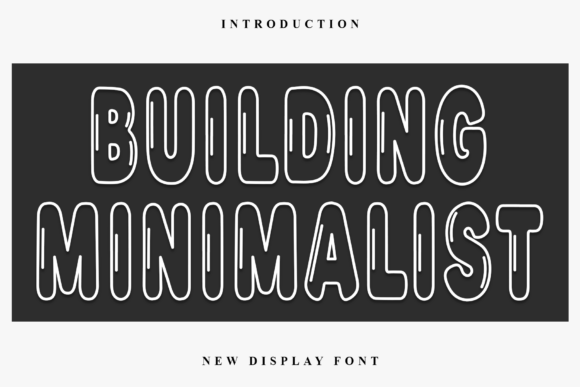
The Magic of Building Minimalist Font: A Festive Holiday Companion
Ah, the holiday season is upon us, and as designers, crafters, and creative hobbyists, we’re often on the lookout for that perfect font to bring our festive projects to life. I still remember the year I spent hours scouring font libraries for the ideal typeface for a client’s holiday card campaign. The brief was simple: find a font that was merry, bright, and whimsical, with a touch of nostalgia. And then, I stumbled upon Building Minimalist Font. ✨
As I dove into the world of Building Minimalist Font, I was excited to see if it lived up to its promises. Here’s my honest review:
• ✅ Festive and merry vibe that instantly captures the holiday spirit
• ✨ Whimsical flair and decorative elements that add a touch of enchantment to designs
• 🔍 PUA encoded for easy access to amazing glyphs and ligatures
• 🎉 Perfect for greeting cards, gift tags, and holiday-themed projects
While Building Minimalist Font is a delightful addition to any design project, there are a few minor considerations to keep in mind:
• 🤔 Limited use outside of holiday-themed projects, as its festive vibe might not fit other design contexts
• ⚠️ May require some experimentation to get the most out of its OpenType features and glyphs
The Story Behind Building Minimalist Font
Building Minimalist Font was designed with the holiday season in mind. The creator, a passionate typographer, wanted to craft a font that would capture the magic and wonder of this special time of year. With its decorative elements and whimsical flair, Building Minimalist Font is the perfect companion for any holiday design project.
Font Name Building Minimalist Font
Author PiPi Creative
Q: Is Building Minimalist Font suitable for body text or long-form content?
A: While Building Minimalist Font is a beautiful addition to any design, its festive vibe and decorative elements make it more suitable for headlines, titles, and short-form content.